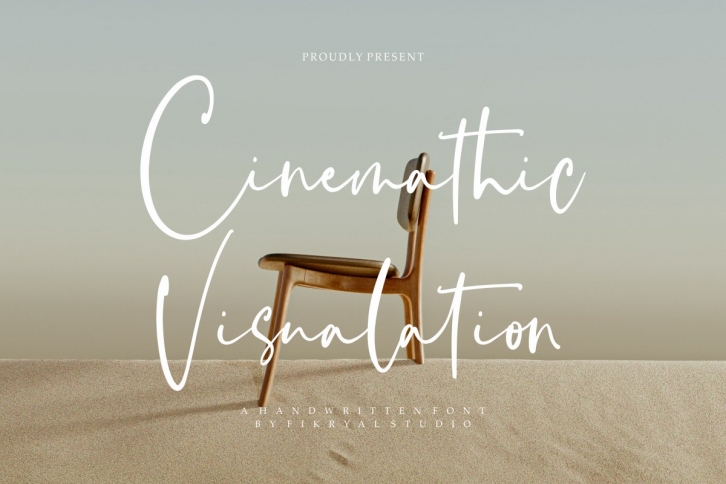
Cinemathic Visualation is a beautiful font that was designed by fikryalstudio. It's a great choice for designers and creatives who need such a font. It was released on October 24, 2021 and the file size is 13.86 MB. Cinemathic Visualation may give a more youthful, expressive and casual look to your project. It is a very beautiful, refined, elegant, and high-quality font.